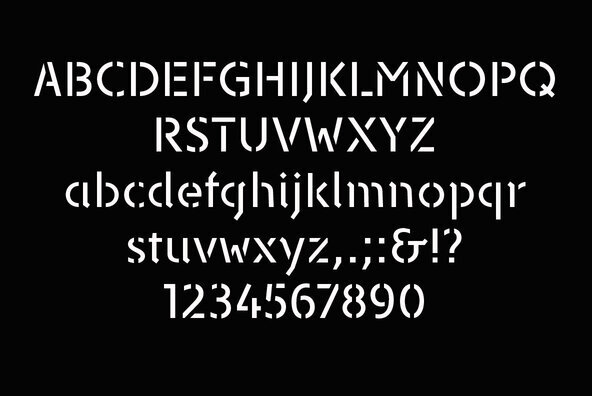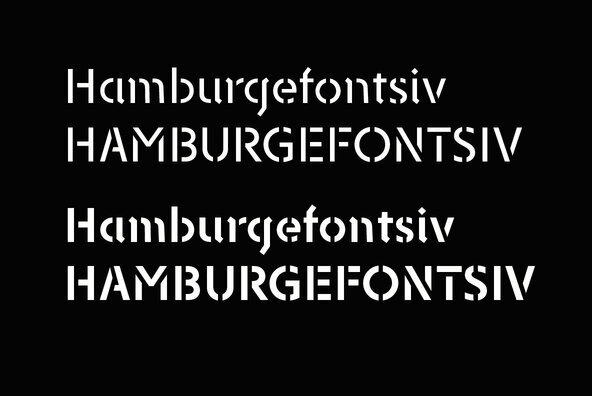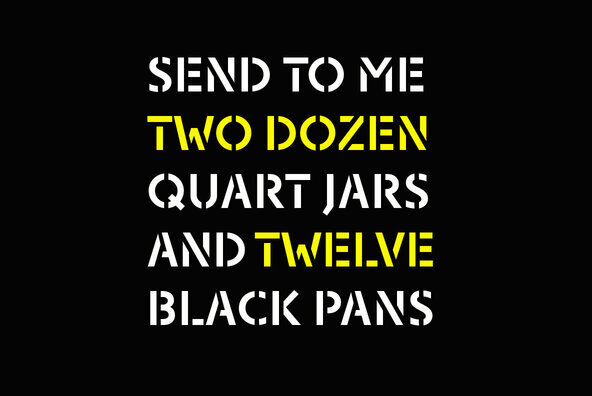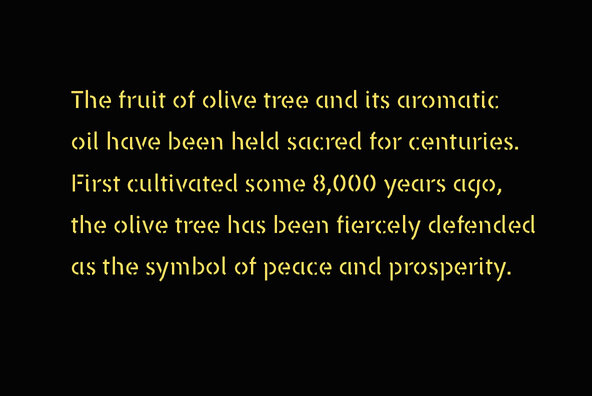
Dina Stencil
Foundry: TipografiaRamis
Dina Stencil is geometric sans serif stencil typeface, an addition to Dina family. Dina Stencil consists of two styles (weights) - regular and bold. The typeface recommended for use in display sizes.